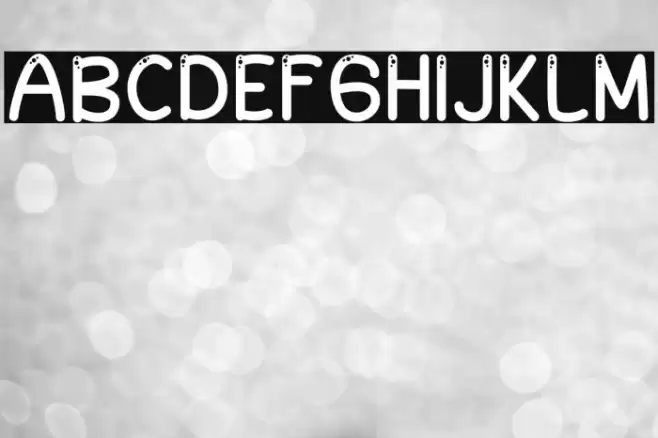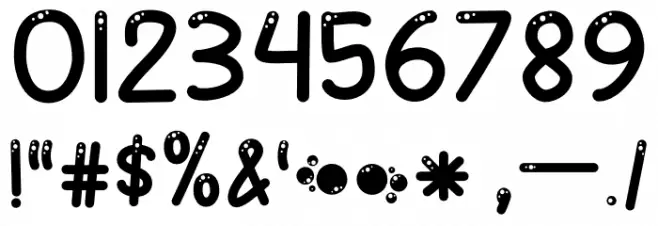
Balloon Font
Balloon Description
This playful and whimsical font features rounded, balloon-like characters that give it a fun and lighthearted appearance. The letters are bold and have a consistent thickness, with small decorative dots adding a unique touch to each character. The font maintains a uniform width across all characters, contributing to its cohesive look. Its bubbly style makes it perfect for projects that require a cheerful and informal tone. The numbers and special characters follow the same design principles, ensuring a harmonious overall appearance.
A playful, balloon-like font with decorative dots and a whimsical style from Cartoon fonts.
- Proposed Projects: Ideal for children's books, party invitations, playful branding, and any project needing a fun, informal touch.
- Overall Style: Playful
- Use Case: Headlines, Logos, Invitations